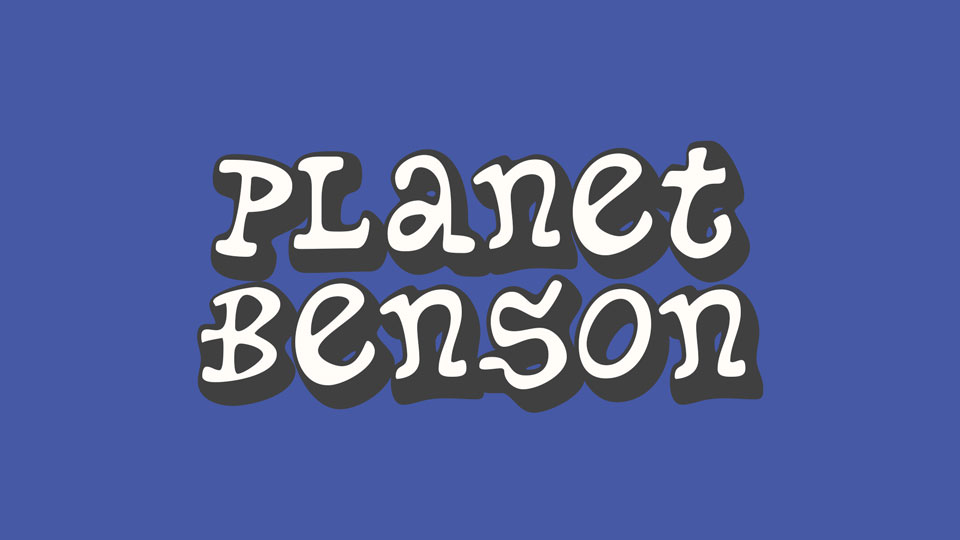
Download Planet Benson font, a quirky, character-rich typeface inspired by the raw, imperfect charm of amateur suburban graffiti, perfect for designs that crave a touch of urban grit and personality.
Designer: Typodermic Fonts